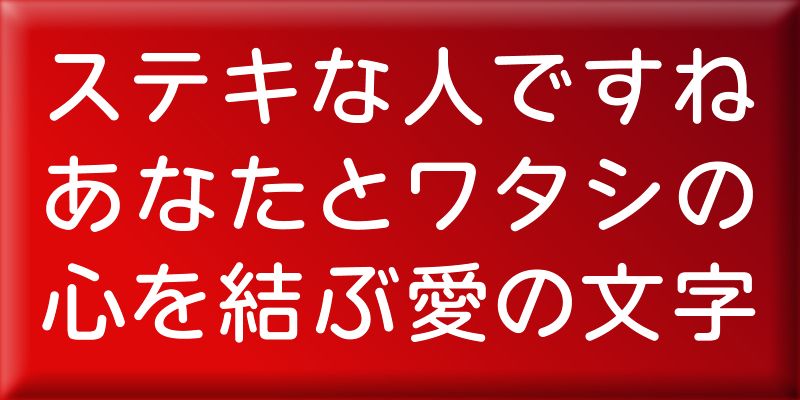
WanpakuRera Font Free Download is a lively and playful Japanese display typeface designed with a youthful, hand-drawn charm. The word “Wanpaku” (わんぱく) means “mischievous” or “playful,” and “Rera” is a gentle-sounding name often associated with nature—together reflecting the font’s whimsical, energetic personality. It’s perfect for children’s books, character branding, pop culture graphics, game titles, and kawaii-themed content.
WanpakuRera Font Free Download features rounded, slightly irregular strokes and expressive curves that mimic a childlike handwriting style—bringing warmth and a fun-loving attitude to any design. It includes full support for Hiragana, Katakana, Kanji, and basic Latin characters, making it ideal for bilingual layouts.
Whether you're designing playful packaging, stickers, or colorful signage, WanpakuRera adds an inviting and animated flair that feels handcrafted and sincere.
Cute, expressive, and full of energy—WanpakuRera Font brings joyful mischief and heart to every letter, making it a perfect fit for fun, family-friendly design.